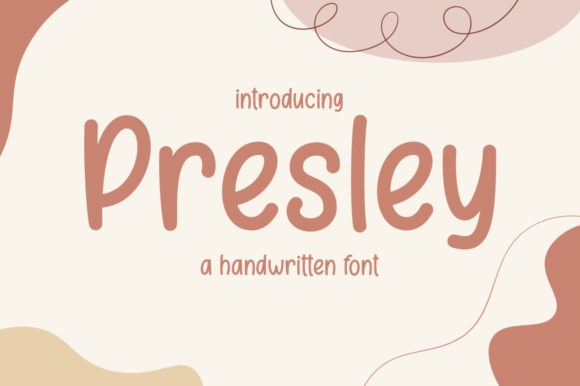
Step into the realm of timeless elegance with Presley Font, a display font family crafted with care to bring a touch of sophistication to your creative endeavors. This stunning font, designed by the talented Nirmala Creative, embodies the essence of romanticism and personalization, making it the perfect choice for those seeking a font that speaks to the heart.
Presley Font is a captivating and delicate handwritten font, exuding a sense of sweetness and charm. Its graceful strokes and flowing curves evoke a sense of nostalgia, perfectly suited for wedding invitations, cards, and any design that seeks a touch of romantic allure. Whether you're a seasoned designer or a creative enthusiast, Presley Font will elevate your projects with its timeless appeal.
As a display font, Presley Font commands attention with its bold and distinctive style. It's a font that demands to be seen, perfect for creating eye-catching headlines, logos, and branding materials. Its inherent versatility allows it to seamlessly adapt to a wide range of design styles, from classic and elegant to modern and contemporary.